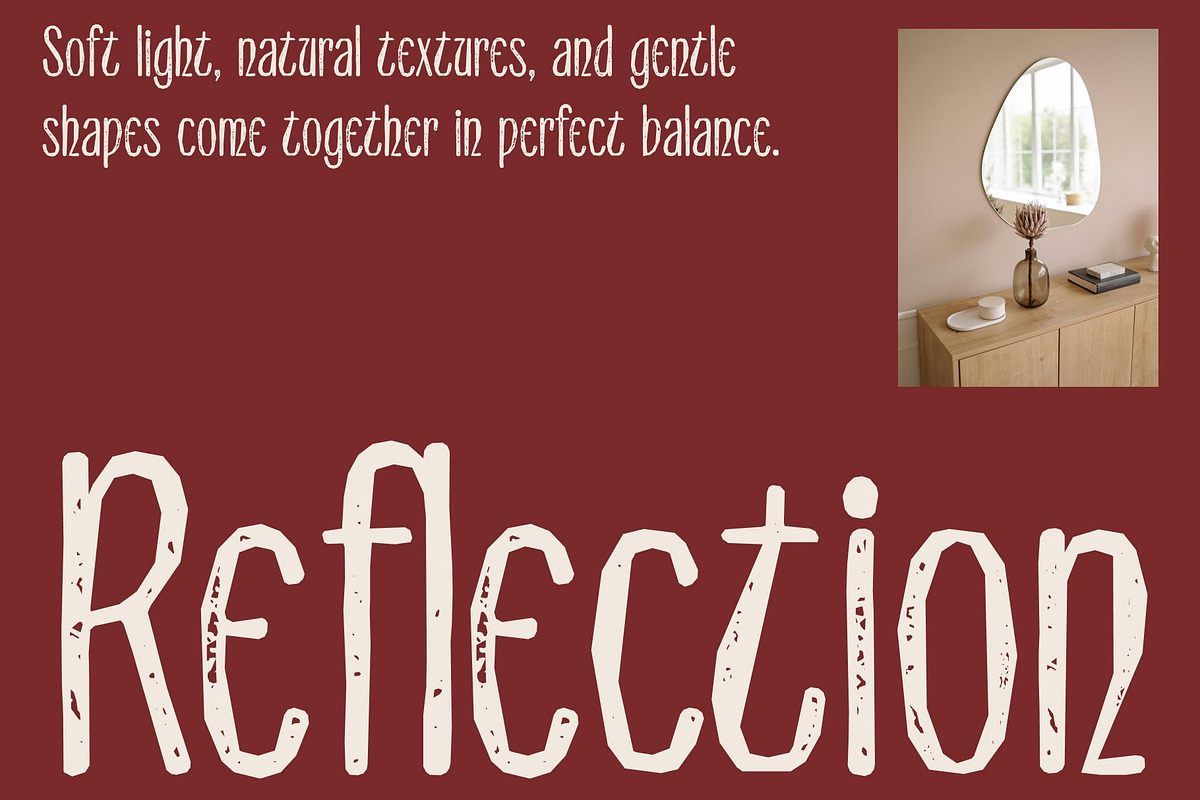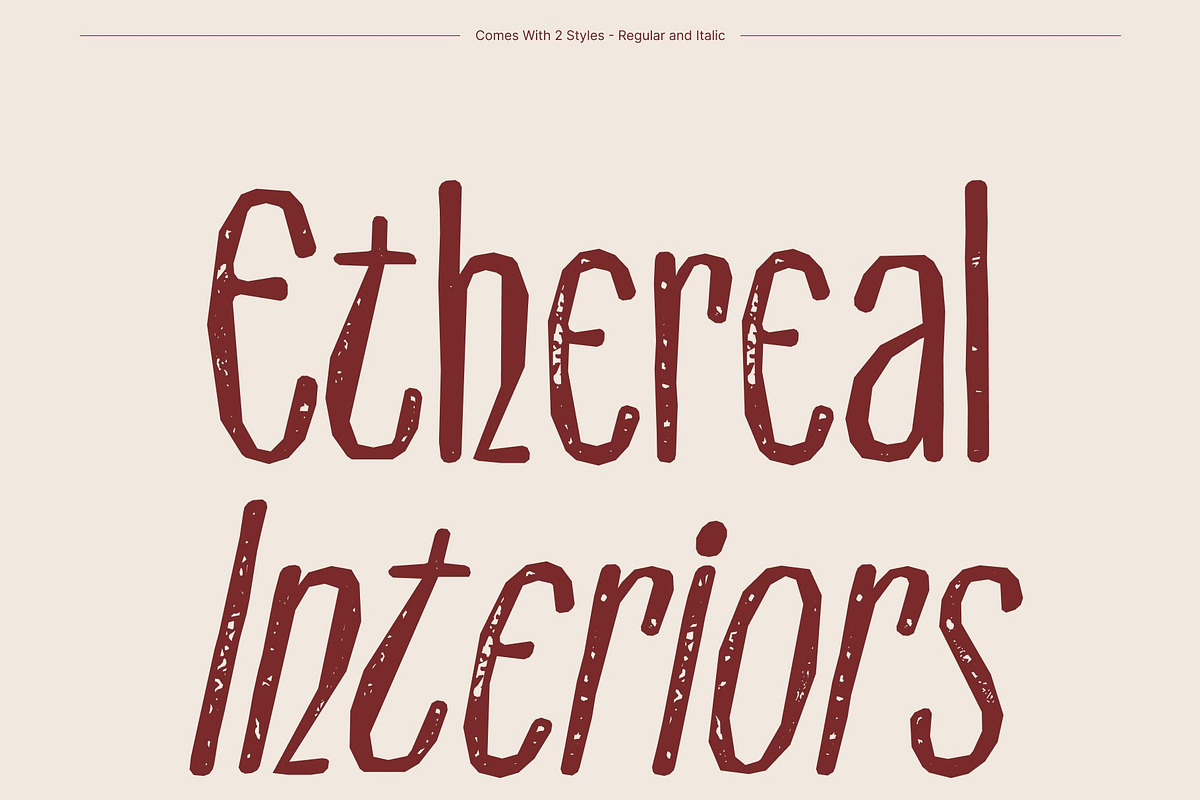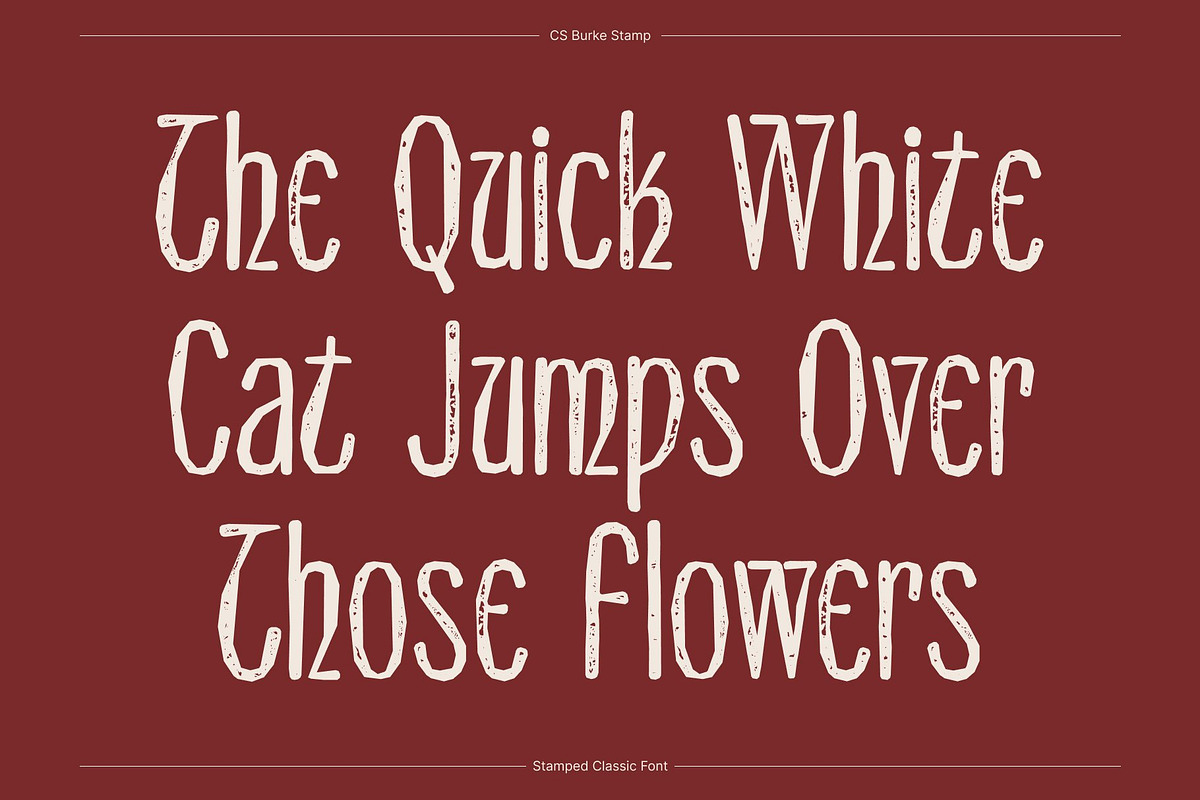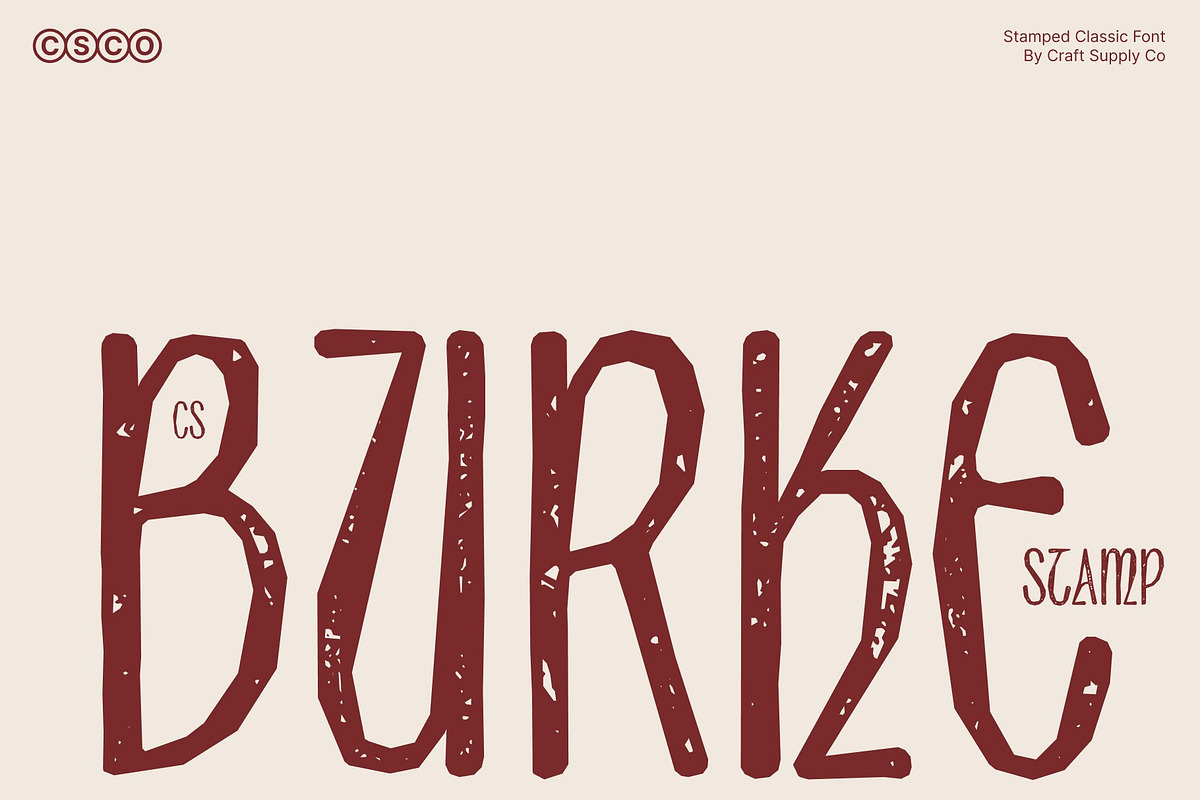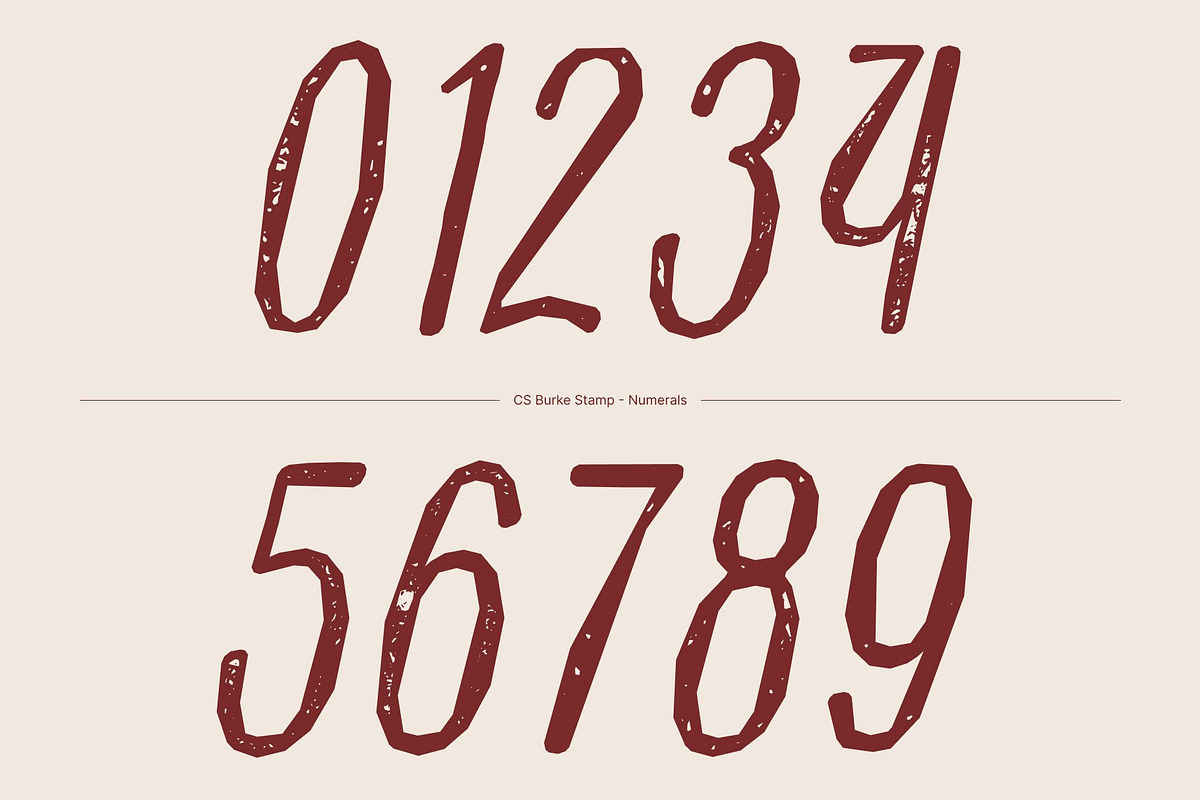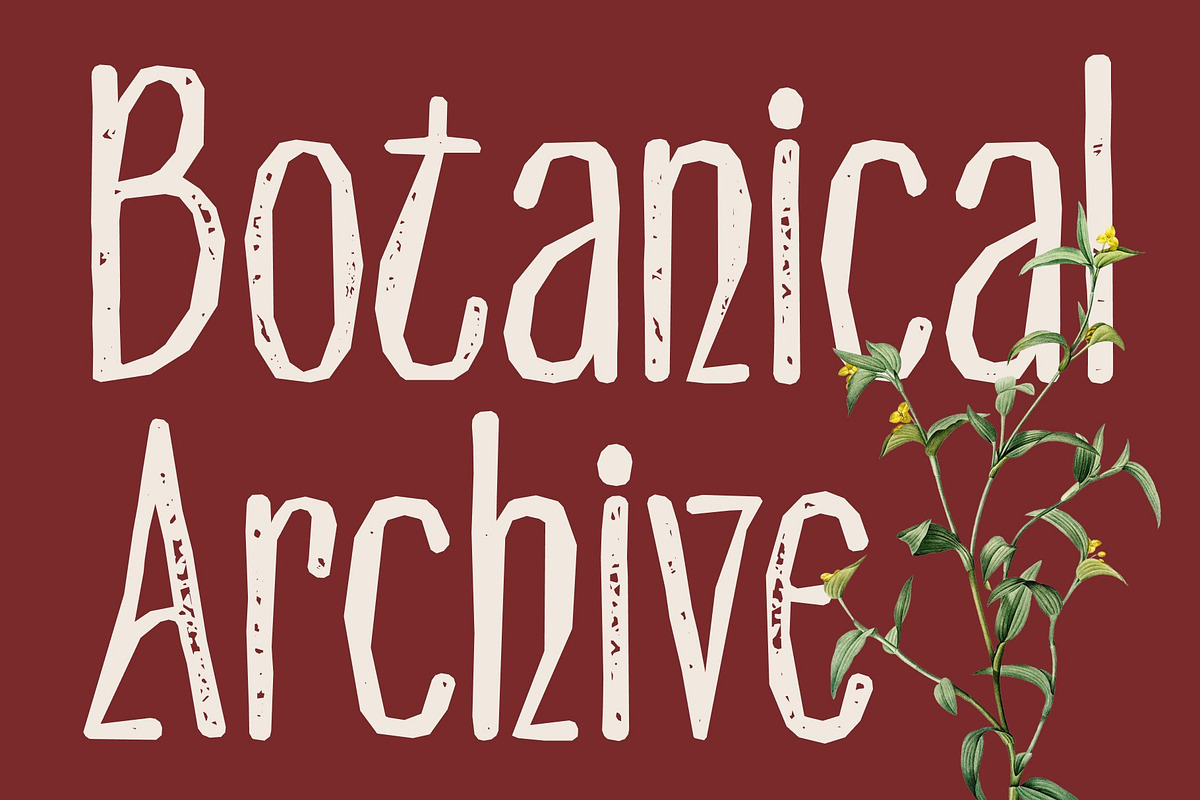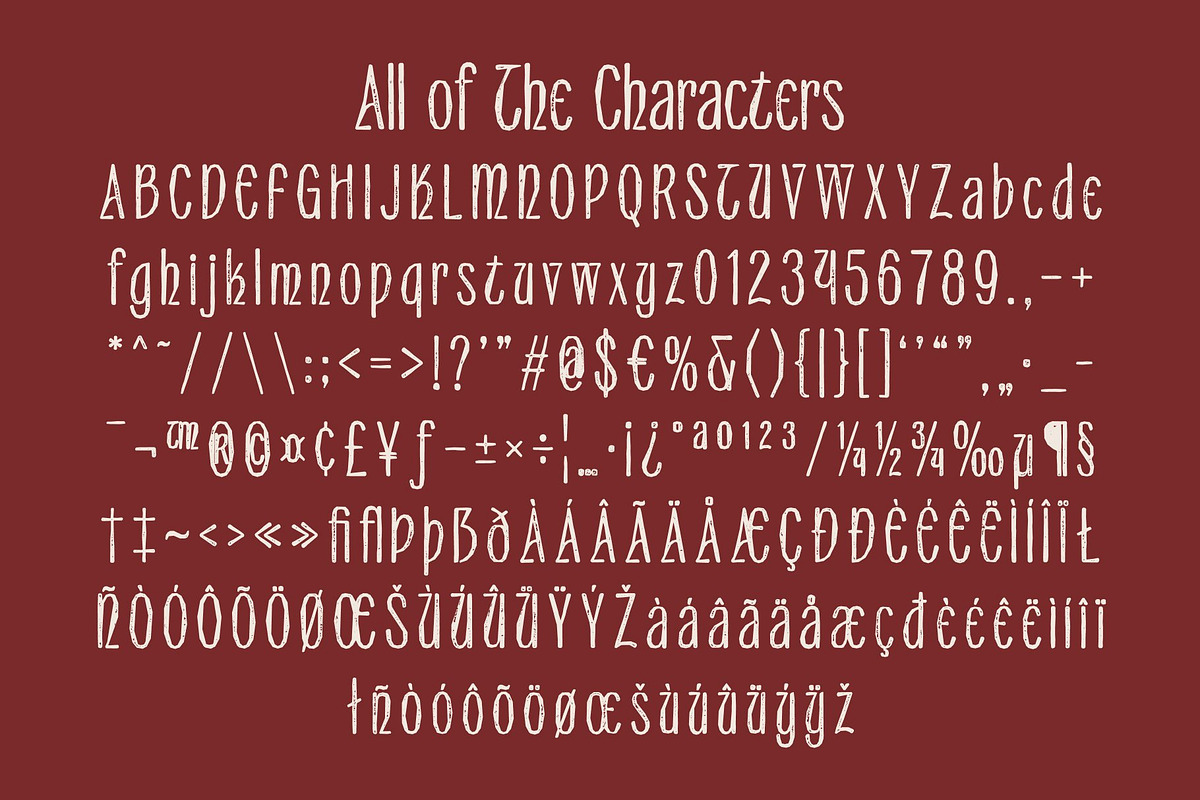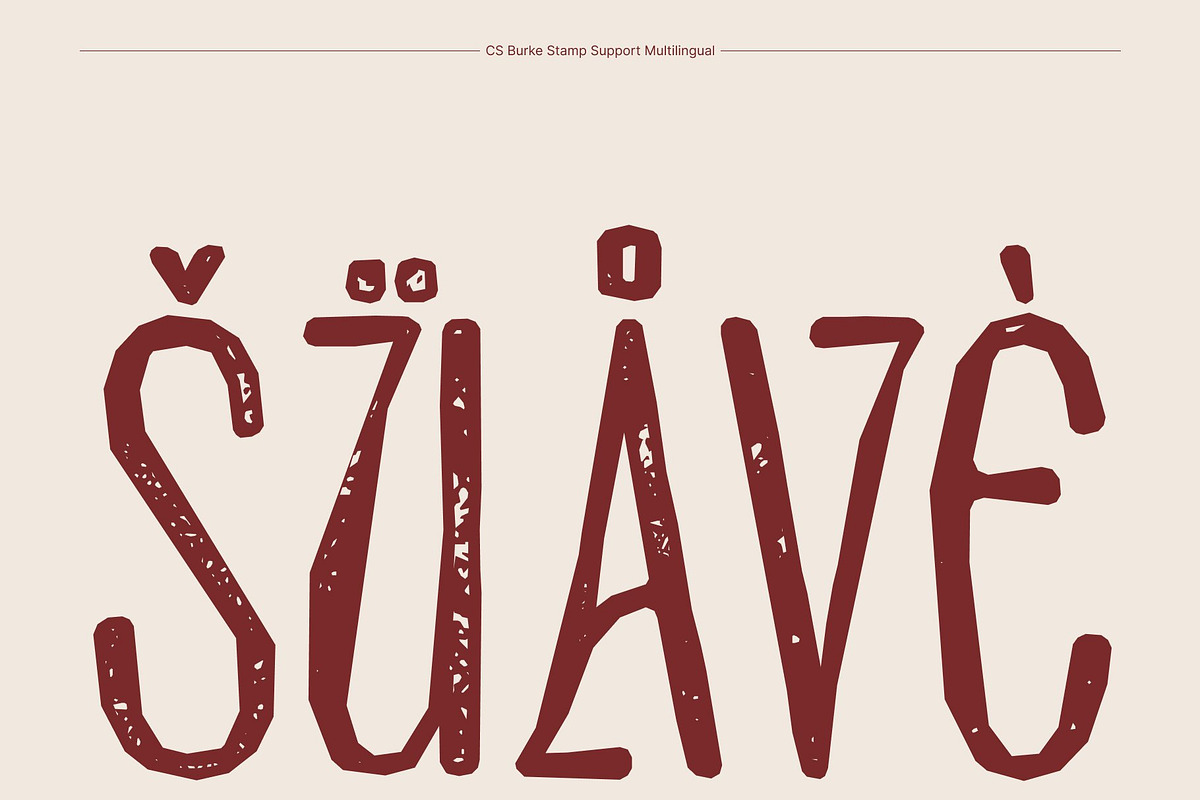
CS Burke Stamp
CS Burke Stamp – Classic Sans-Serif with Modern Elegance
Modern Sans-Serif with Timeless Luxury This is a refined sans-serif display font that fuses sleek modern minimalism with classic sophistication. Its tall, elegant proportions and smooth, clean lines convey a sense of professionalism and exclusivity, making it ideal for luxury branding, high-end editorial projects, and premium packaging.
Polished Simplicity Meets Sophistication Designed with precise geometry and balanced proportions, this font a minimalist aesthetic that feels both contemporary and upscale. Its understated elegance ensures versatility across fashion campaigns, magazine layouts, and sophisticated digital interfaces, giving projects a sense of subtle opulence and modern refinement.
Perfect for Premium Branding and Editorials Whether applied to logos, invitations, advertisements, or editorial headlines, this font a timeless, high-end feel. Its clean structure and graceful letterforms make it suitable for designs that require clarity, prestige, and a polished presentation, elevating the overall visual identity.
Harmonious Blend of Classic and Modern Design With smooth curves and meticulous execution, embodies modern classicism. The font strikes a balance between tradition and innovation, offering designers a sophisticated, stylish, and effortlessly elegant typographic tool for a wide range of luxurious applications.
CS Burke Stamp Regular
CS Burke Stamp Italic